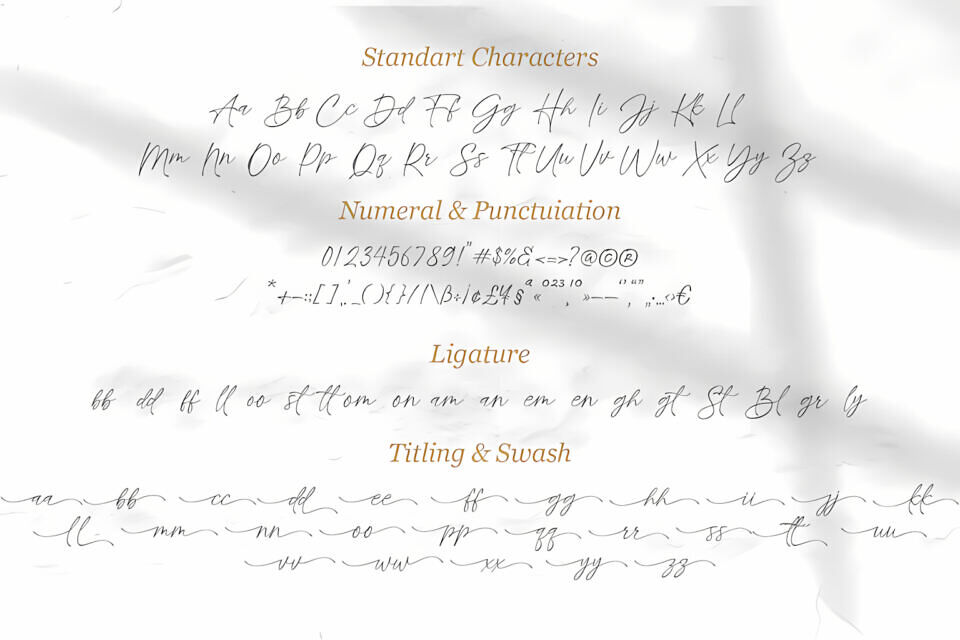
Whole Font by MJB Letters is a graceful, handwritten script with flowing, elegant curves. Its smooth, connected letterforms bring a casual yet sophisticated charm, making it ideal for invitations, logos, and personal projects. The typeface balances readability with a personal touch, perfect for adding warmth to designs.